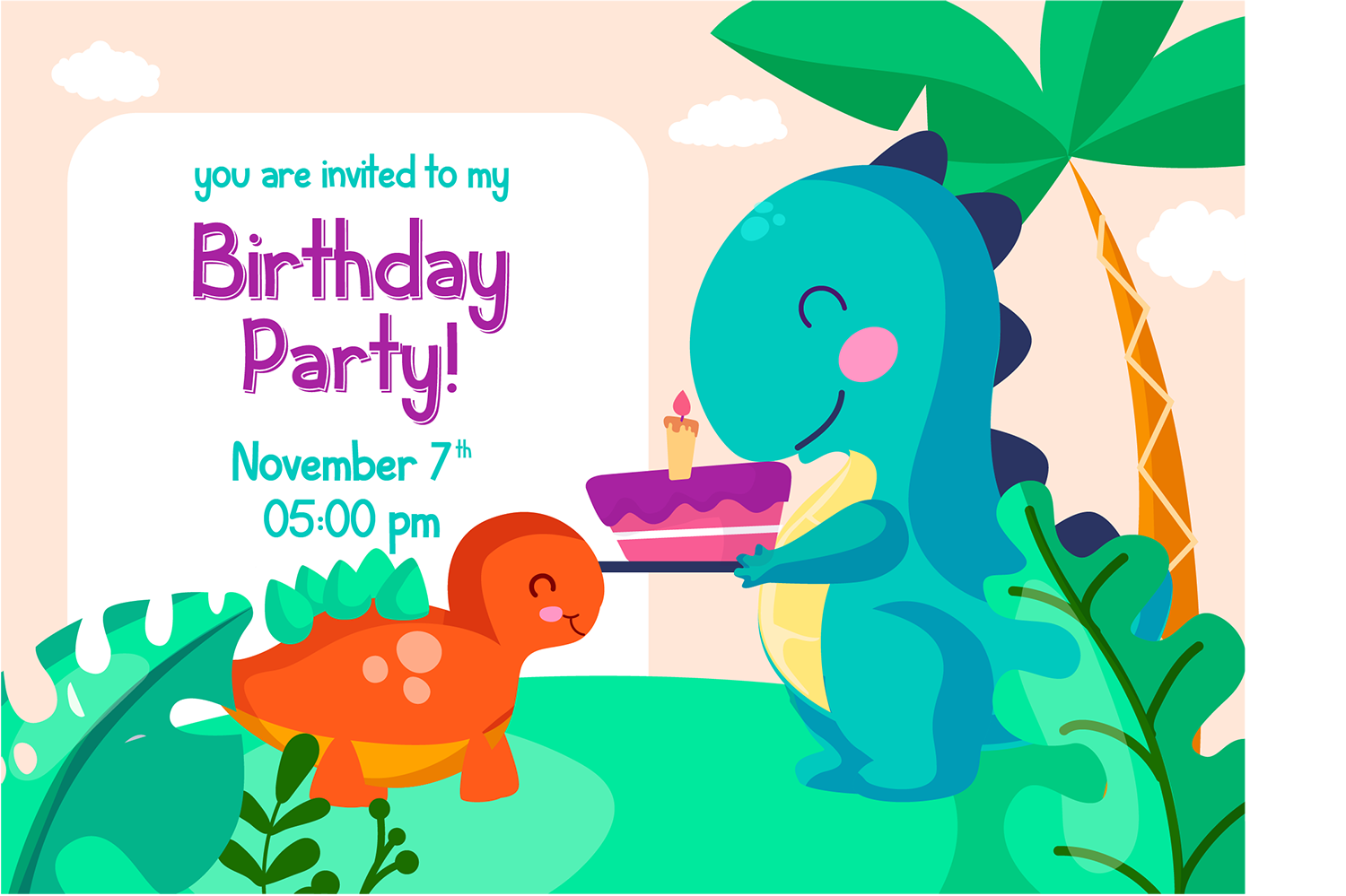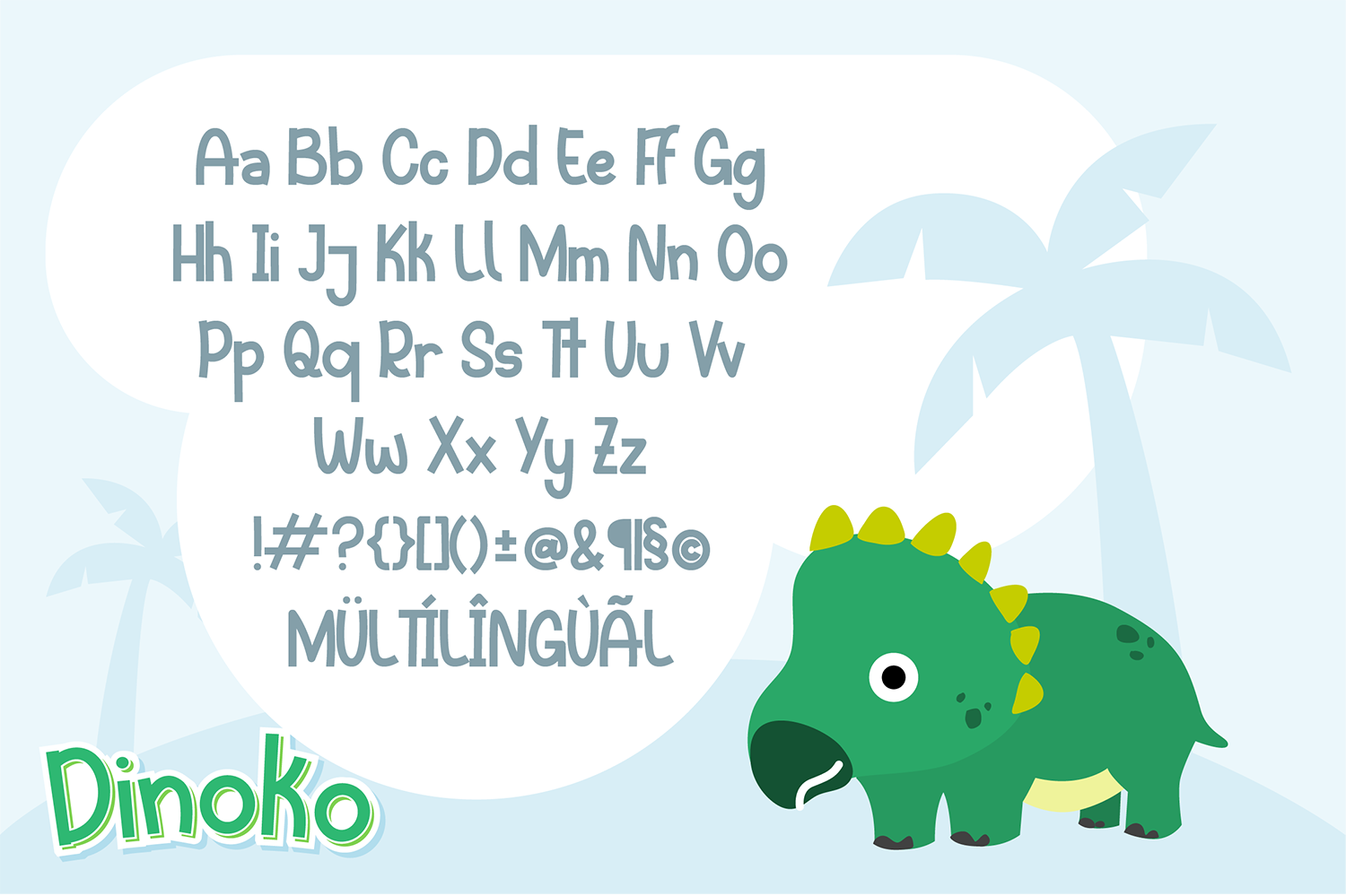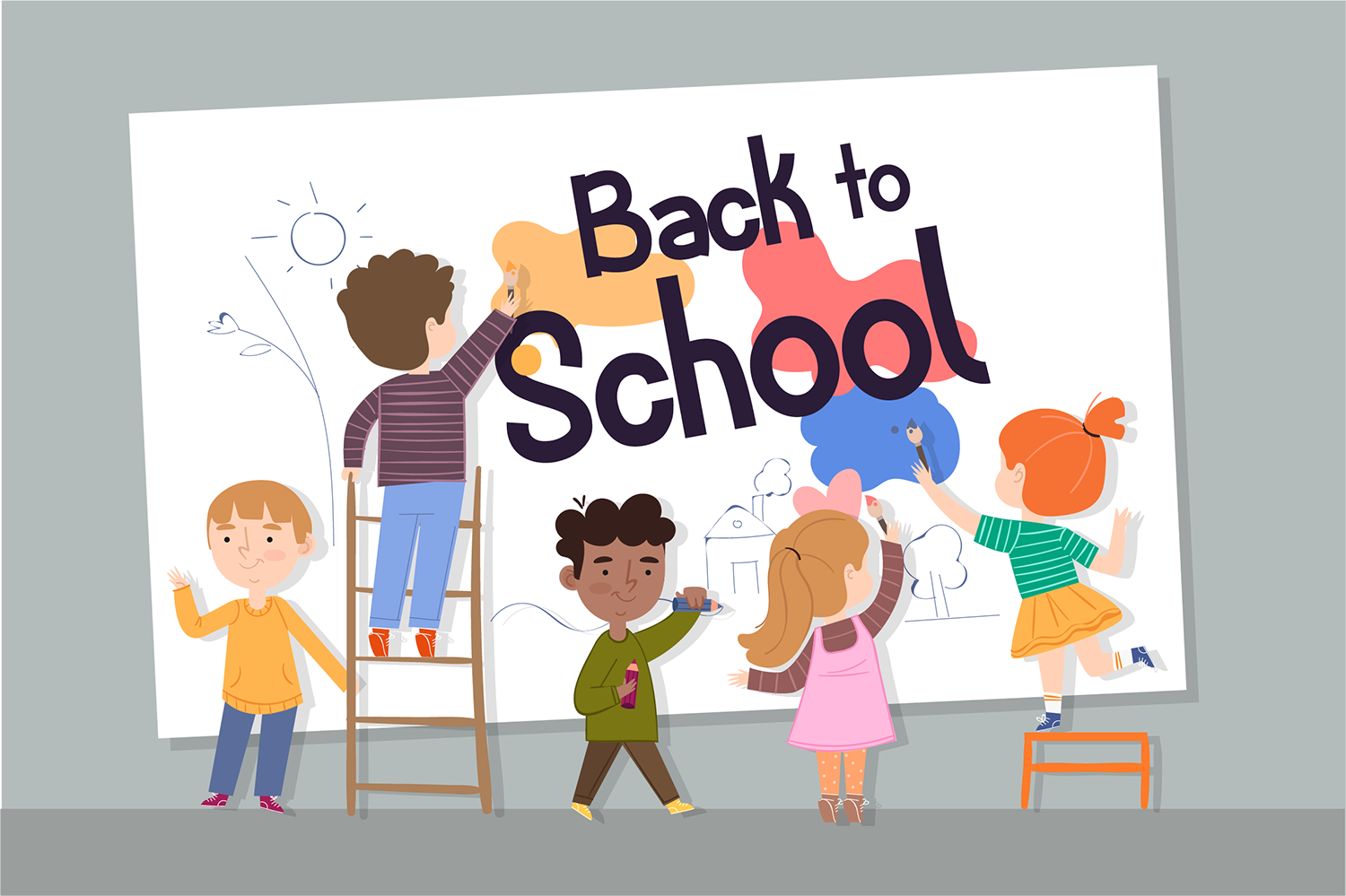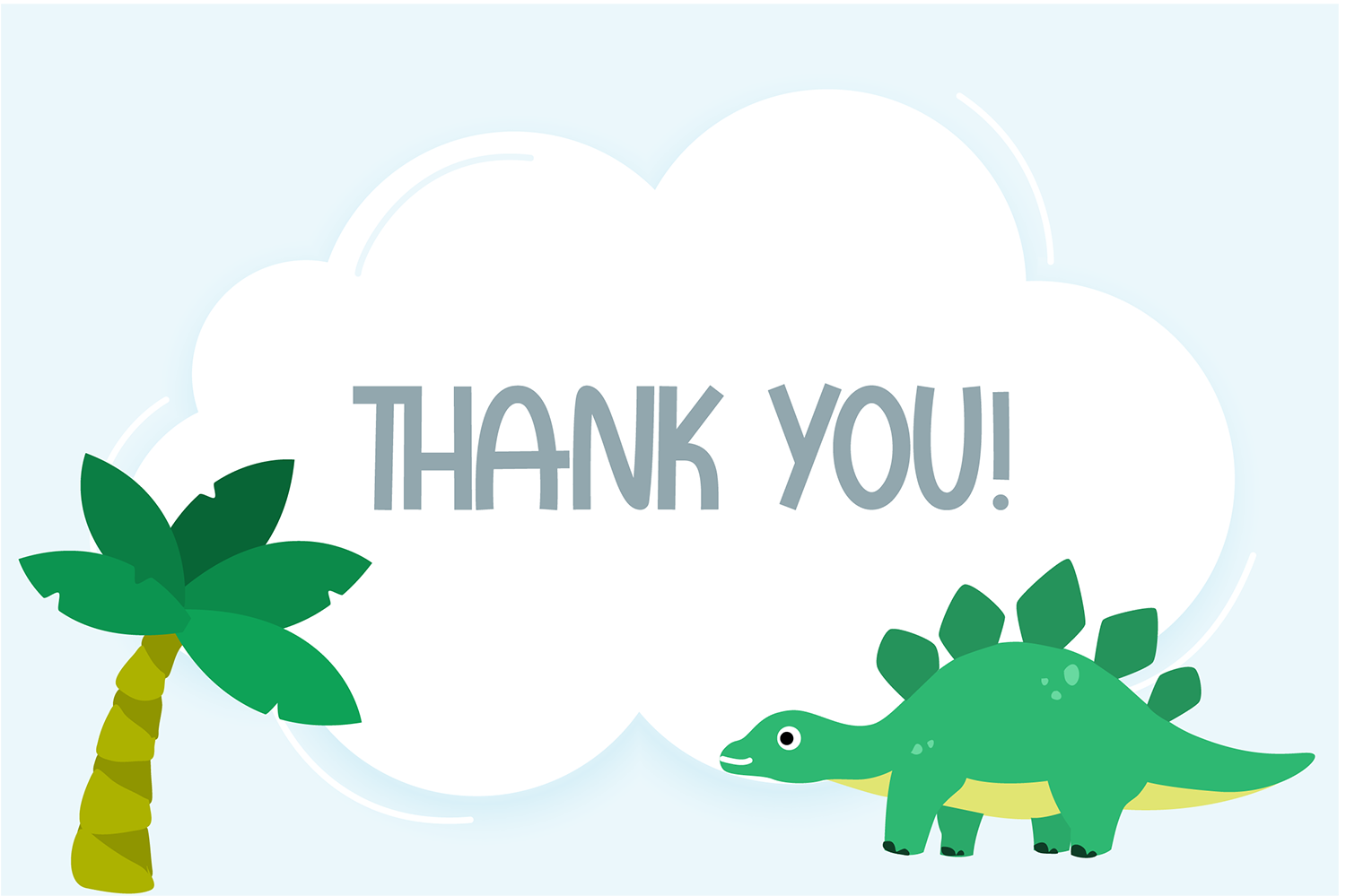
Dinoko Free Font
Dinoko Free Font is a cute and quirky display font. It will add an incredibly joyful touch to your designs. Add this beautiful display font to each of your creative ideas and notice how it makes them stand out. This free typeface was designed by a talented Yudi Setiawan. If you like it don’t forget to check out the full version.